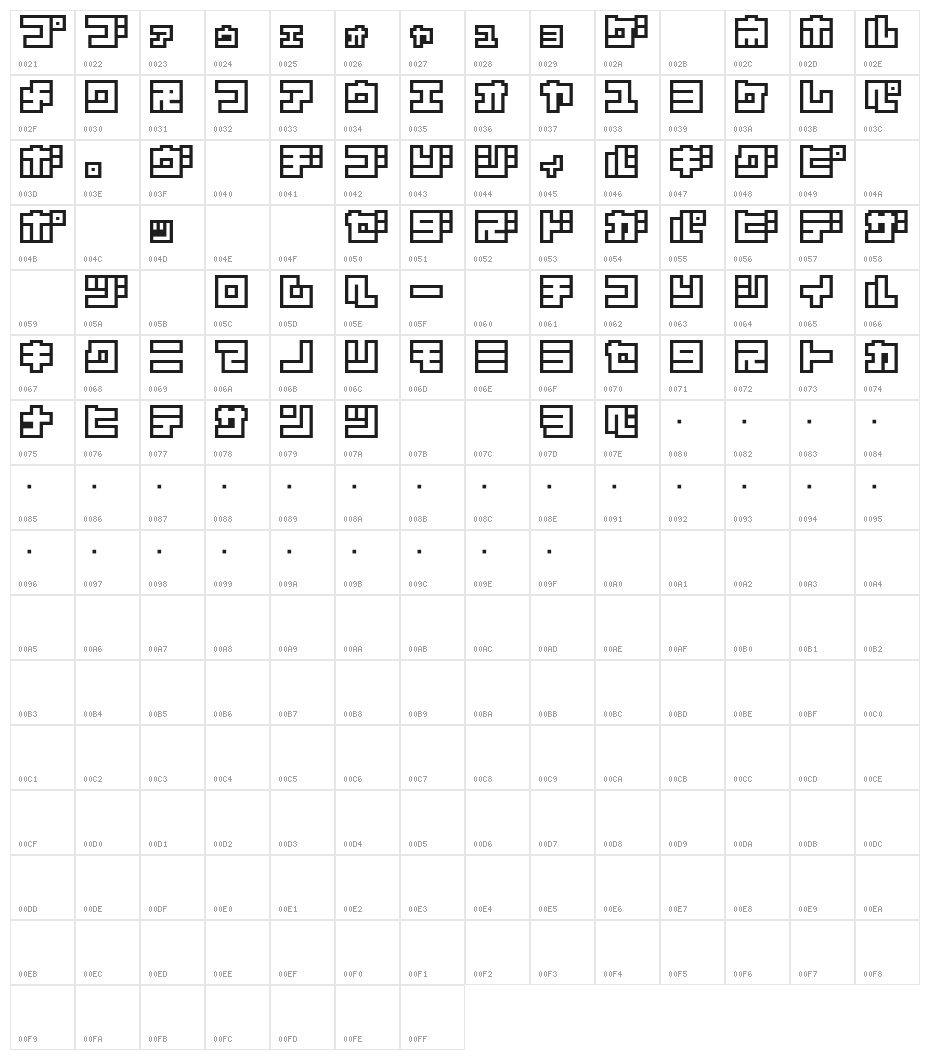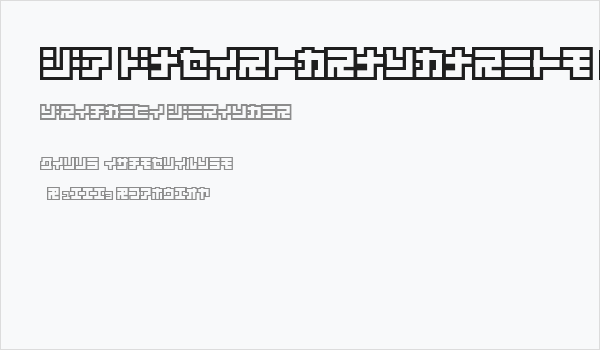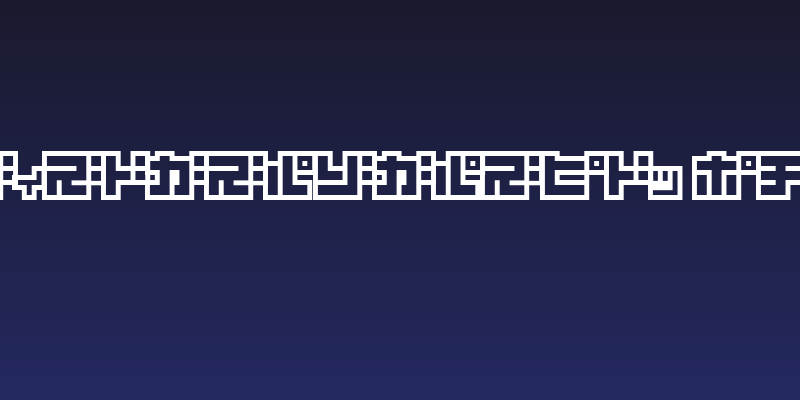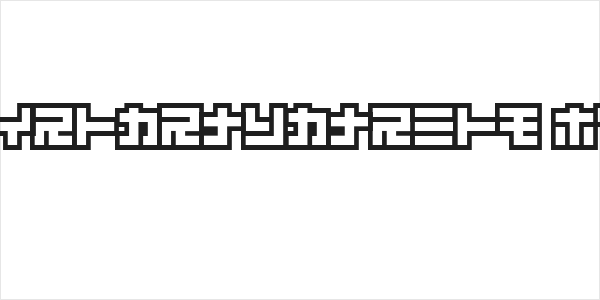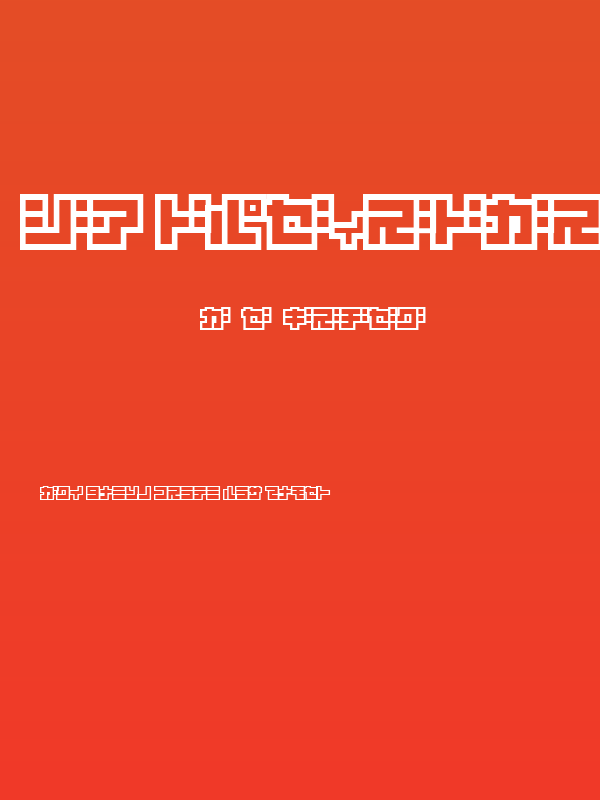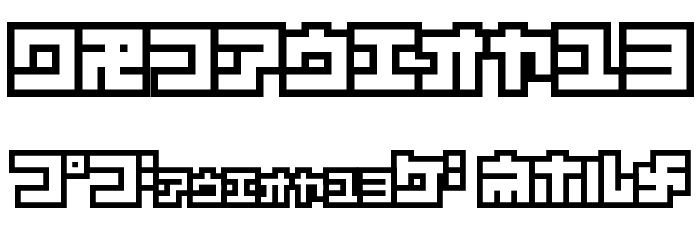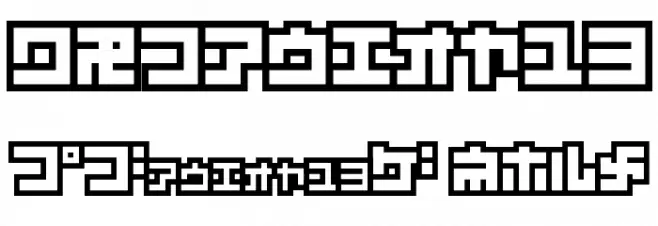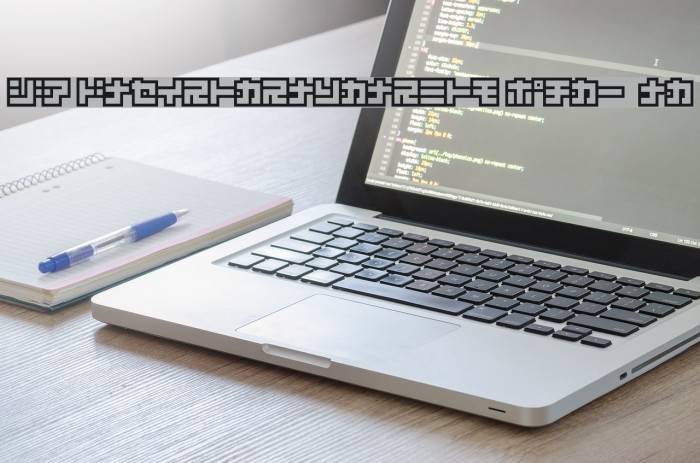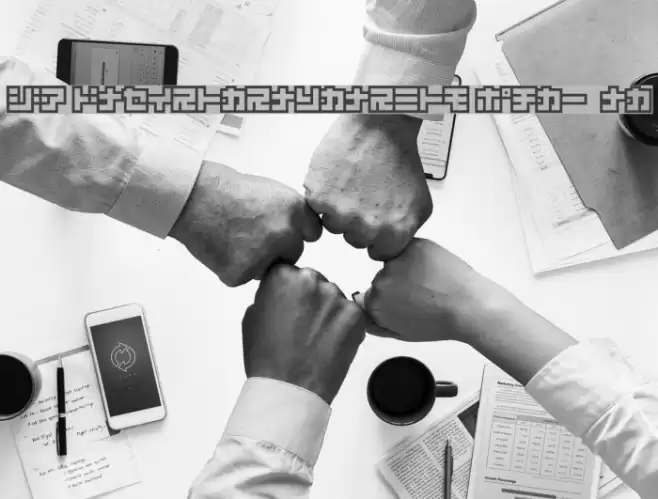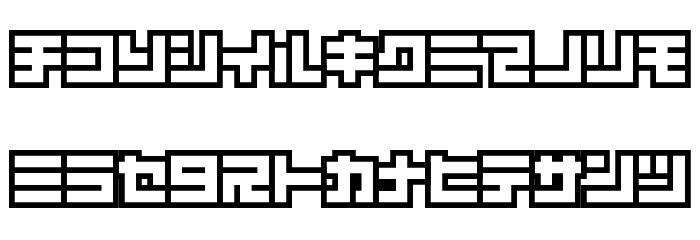
D3 Superstructurism Kat_Out Font
D3 Superstructurism Kat_Out Description
This font features a bold, geometric design with a strong emphasis on angular shapes and thick outlines. Each character is constructed with a uniform stroke width, creating a cohesive and structured appearance. The font's style is reminiscent of architectural blueprints or digital interfaces, with a futuristic and industrial feel. Its distinct blocky form makes it highly legible at larger sizes, while the consistent line weight adds to its modern aesthetic. The characters are tightly spaced, enhancing the compact and efficient look of the typeface.
| Overall Style | Futuristic |
| Proposed Projects | Ideal for technology branding, video game titles, sci-fi movie posters, and digital interfaces. |